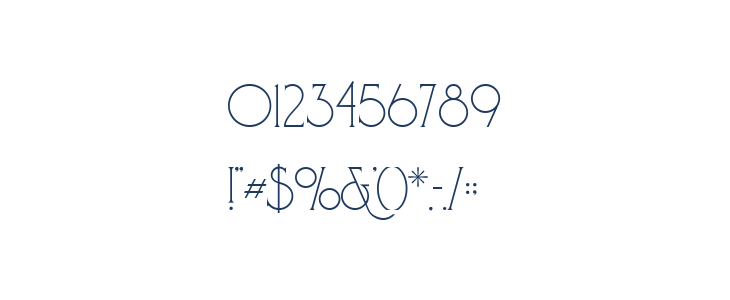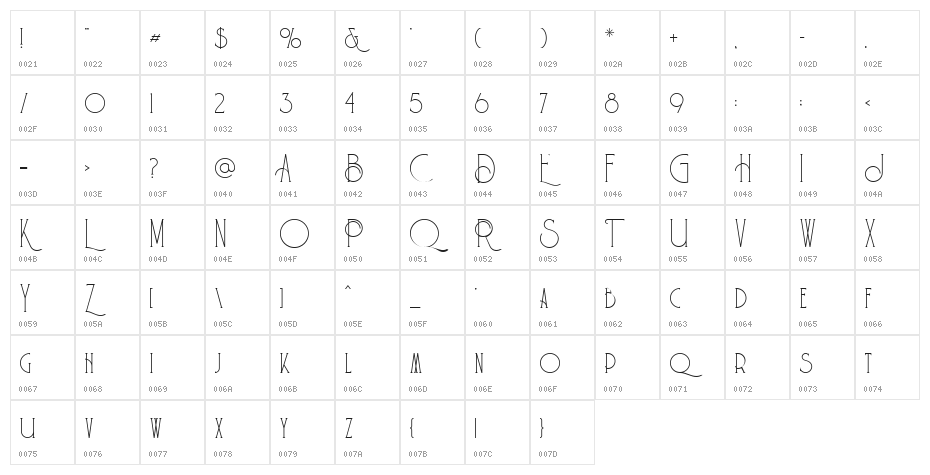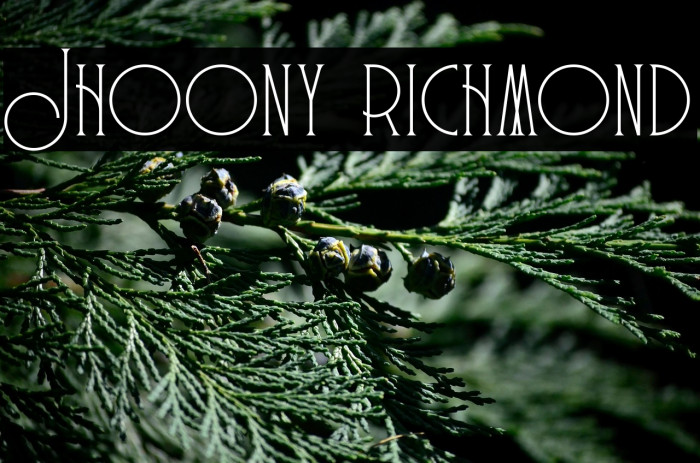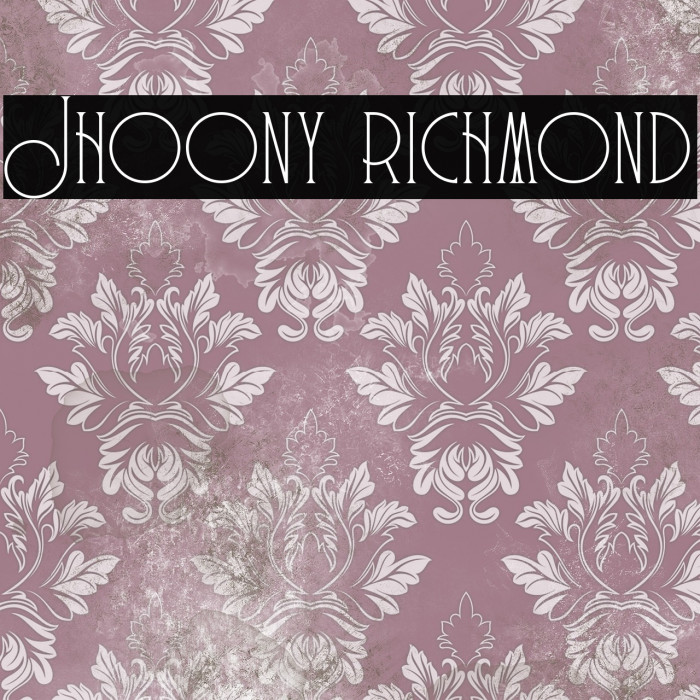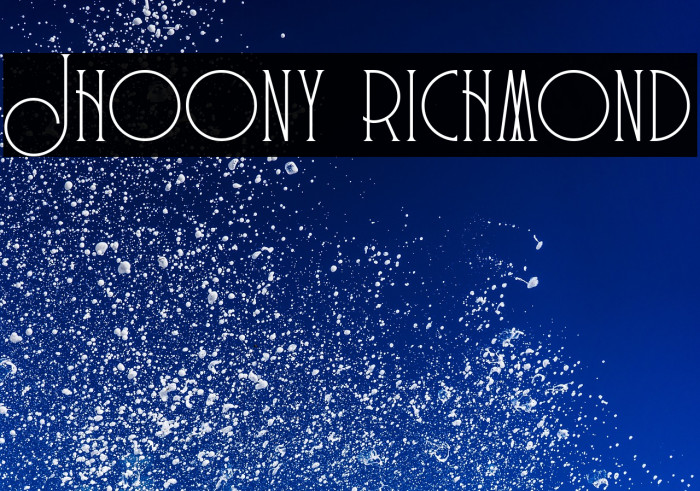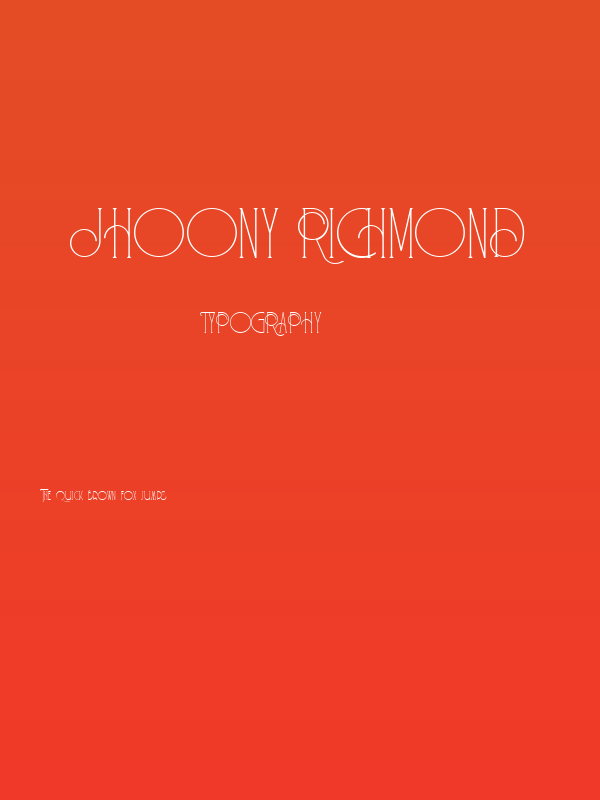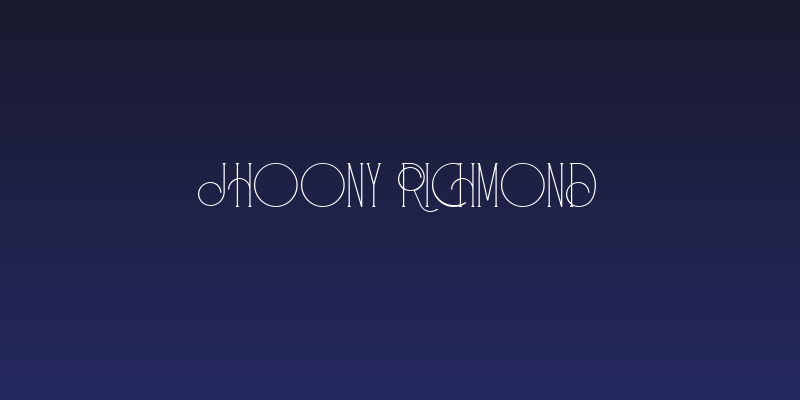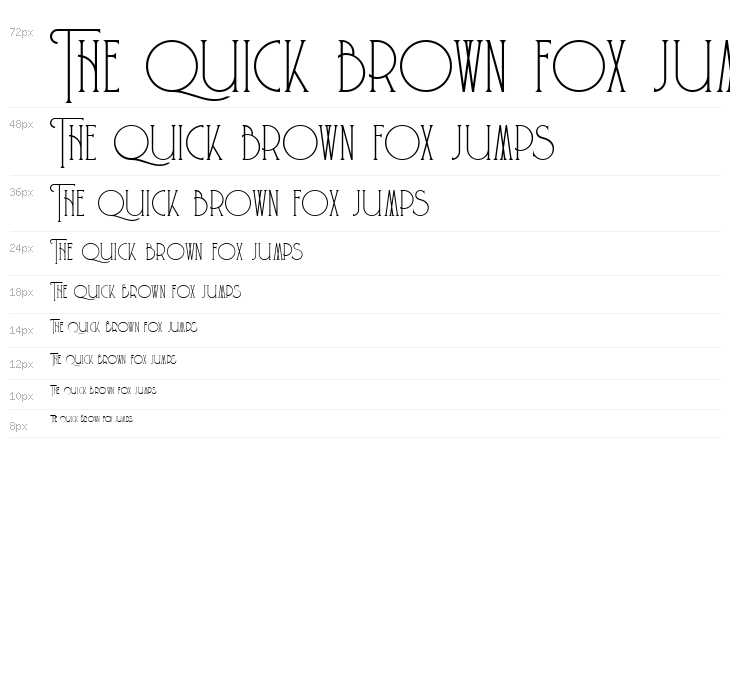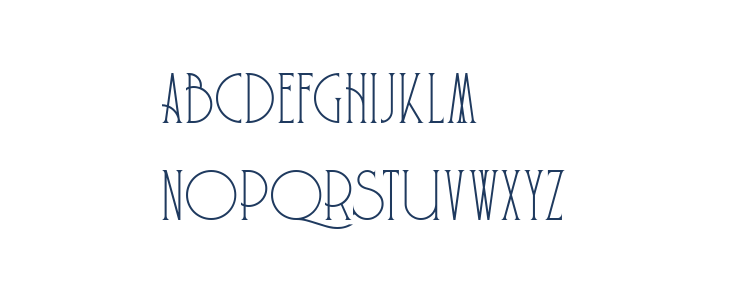
Jhoony richmond Font
Jhoony richmond Description
This font features a unique and artistic design, characterized by its elongated and slender letterforms. The uppercase letters exhibit a distinctive geometric style with circular and linear elements, creating a sense of elegance and sophistication. The lowercase letters maintain a similar aesthetic, offering a cohesive look across the typeface. The numerals are consistent with the overall design, providing a modern and stylish appearance. Special characters are crafted with the same attention to detail, enhancing the font's versatility. The combination of thin strokes and geometric shapes gives this font a decorative and contemporary feel, making it suitable for creative and artistic projects.
| Use Case | Headlines, Logos, Artistic projects |
| Proposed Projects | Ideal for branding, posters, invitations, and artistic projects that require a modern and elegant touch. |